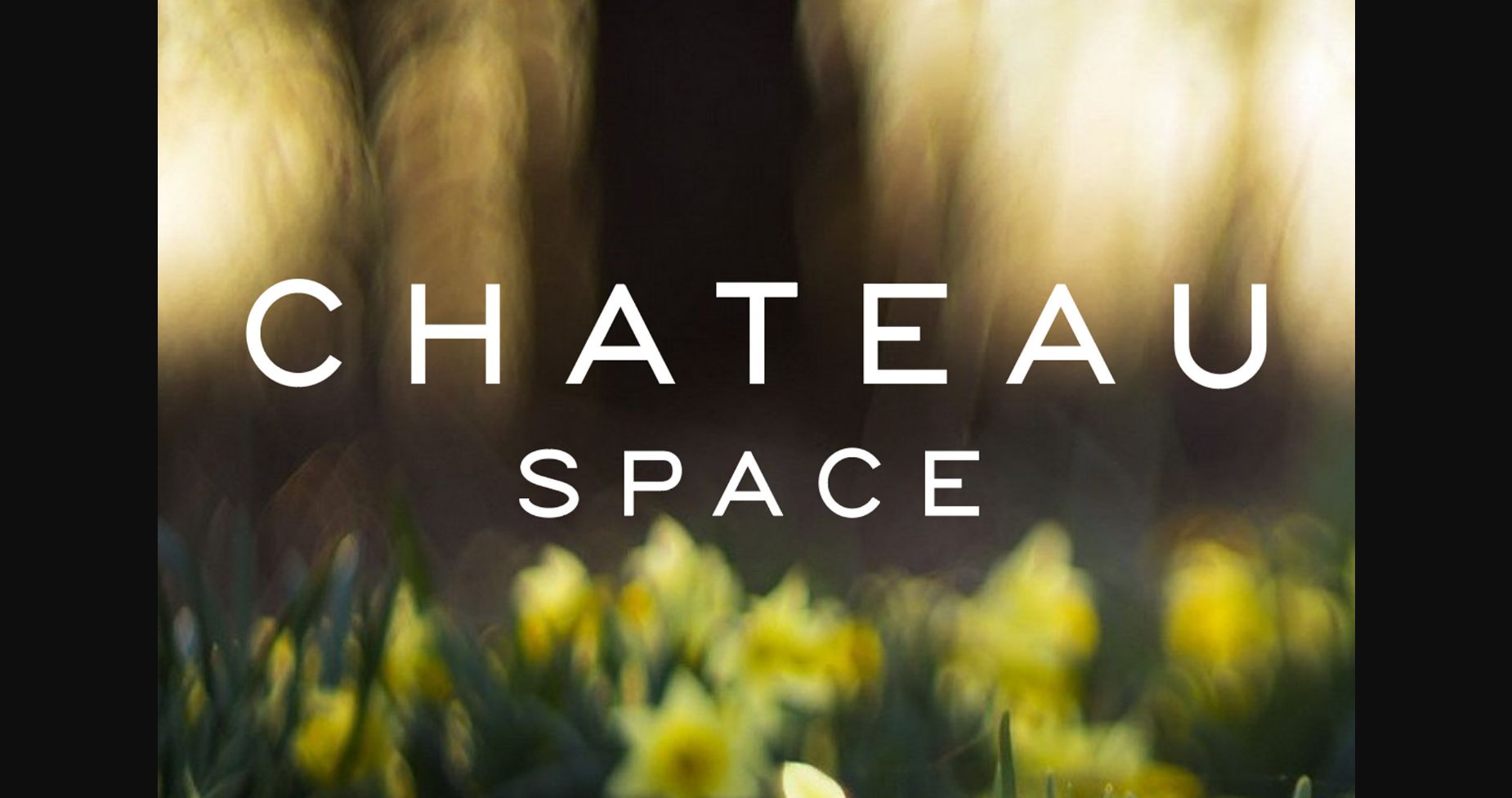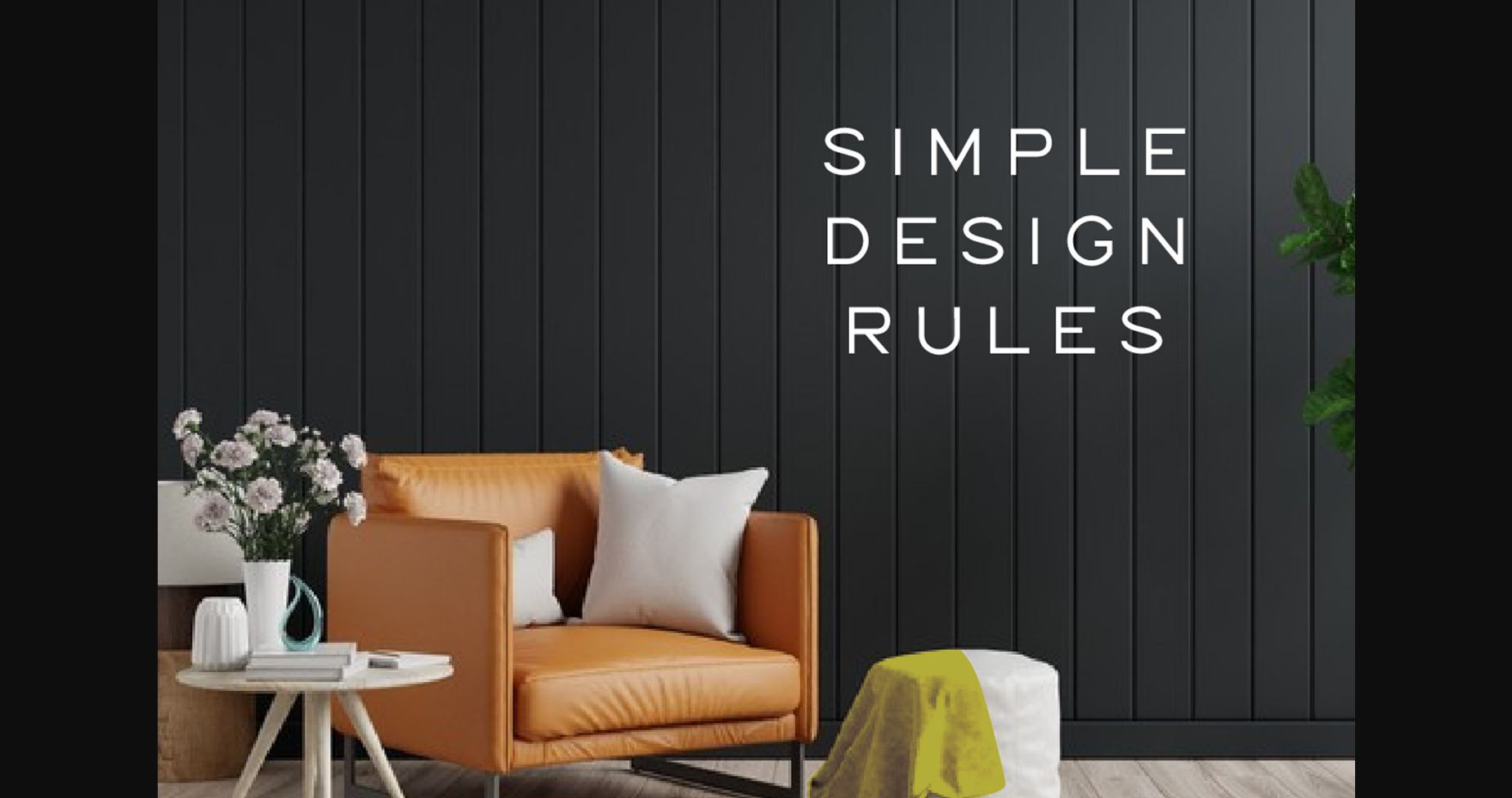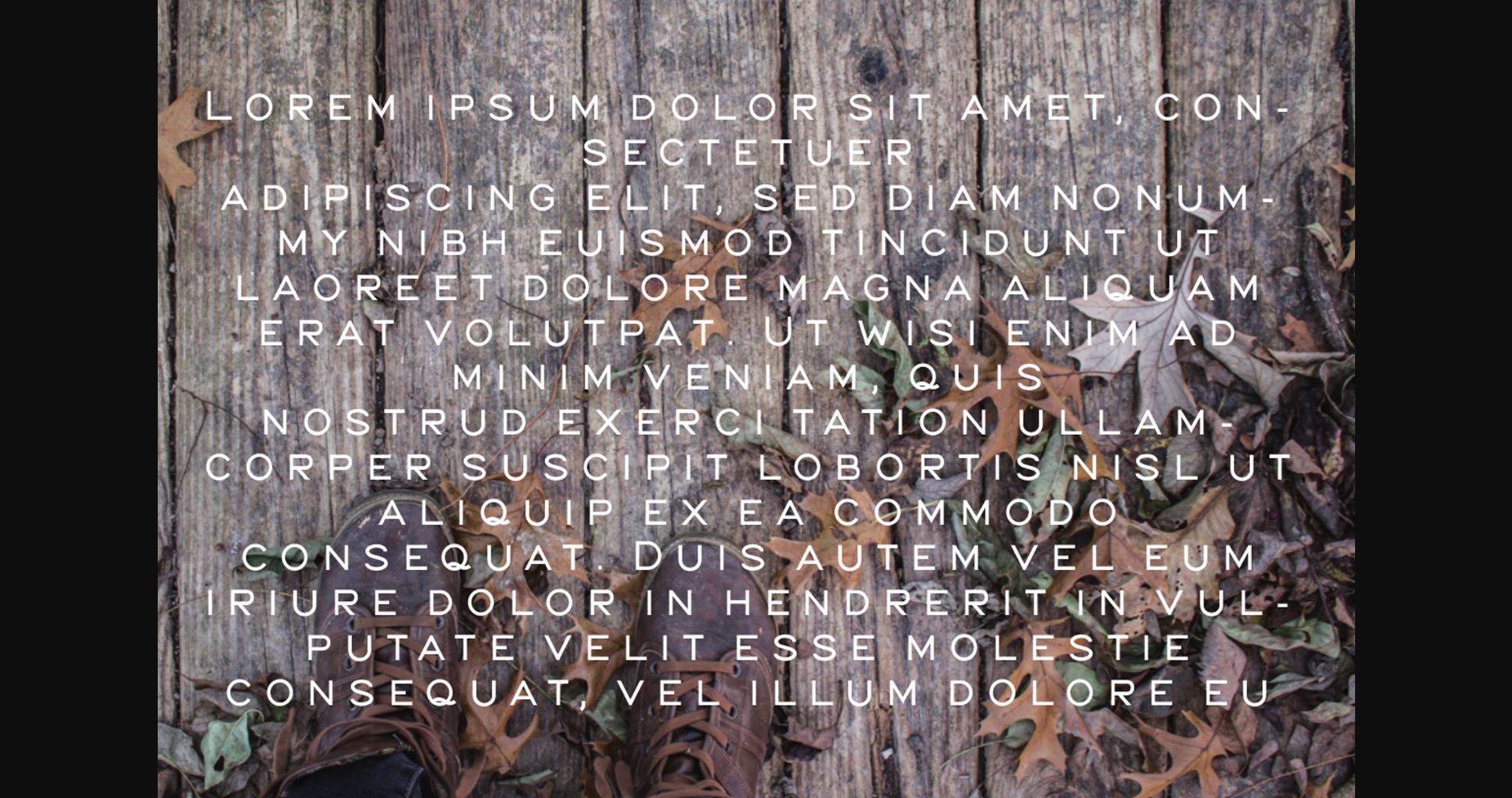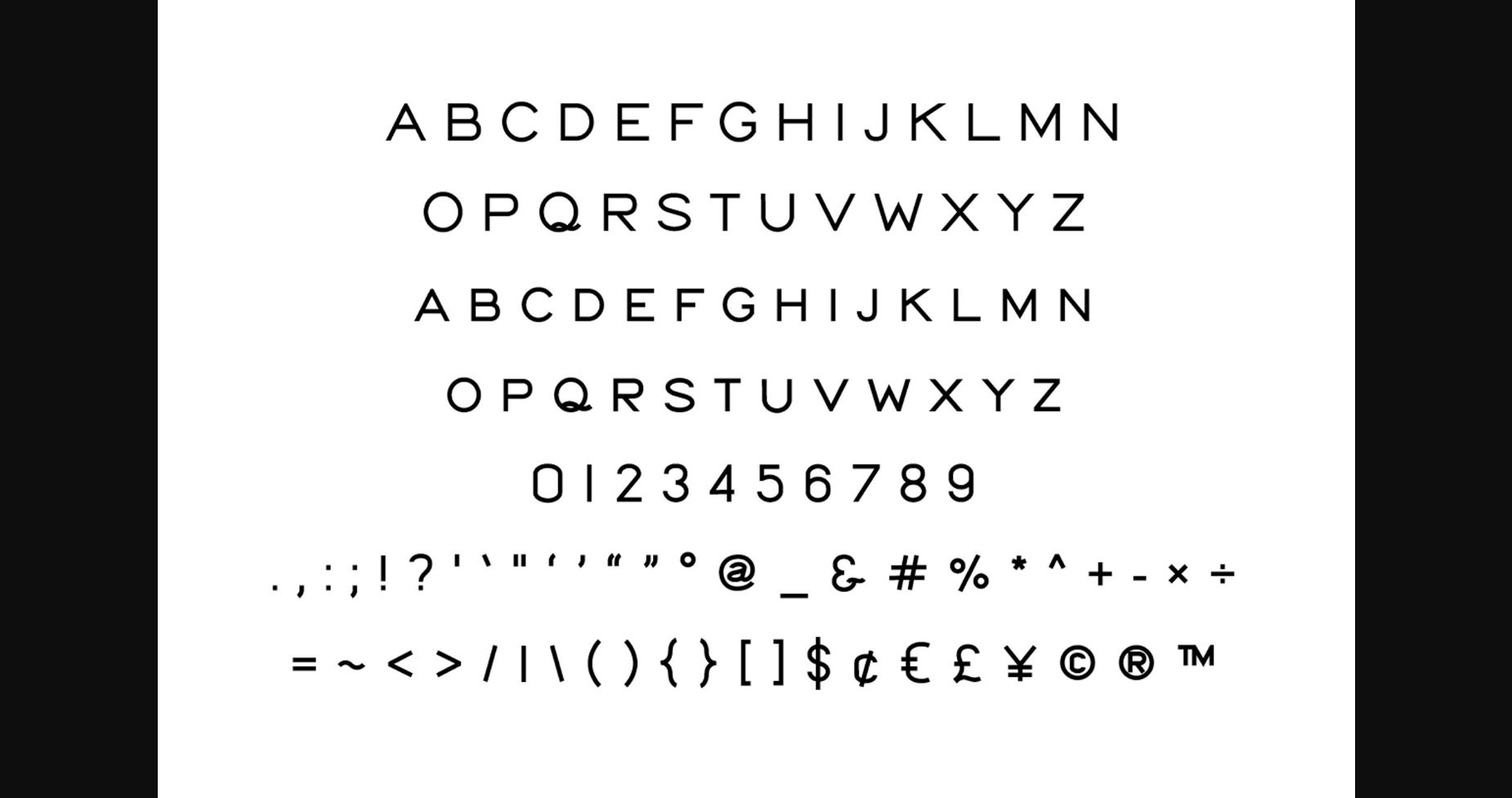
HomeSans Serif FontsChateau Space Font Sans Serif Fonts Chateau Space Font FacebookXPinterestWhatsApp 1 of 7 ... Chateau Space Font Poster 2... Chateau Space Font Poster 3... Chateau Space Font Poster 4... Chateau Space Font Poster 5... Chateau Space Font Poster 6... Chateau Space Font Poster 7... About Chateau Space Font Chateau Space is a minimal and neat sans serif font. It can easily be matched to an incredibly large set of projects, so add it to your creative ideas and notice how it makes them stand out! DOWNLOAD NOW People also explored Steinfild Font Hallowitch Font Younger Font Suboseto Font Hibiscus Monogram Font Contoursy Signature Font Friday Feelings Font Highland Font Fun Field Font 336 0 TagsChateau Space Font Previous articleAlgeko FontNext articleMaffiny Font LEAVE A REPLY Cancel reply Comment: Please enter your comment! Name:* Please enter your name here Email:* You have entered an incorrect email address! Please enter your email address here Website: Save my name, email, and website in this browser for the next time I comment. Personal Use Free Zero Panzer Personal Use Free Read more about this font Super Discount Personal Use Free Read more about this font Tomatoes Personal Use Free Read more about this font Earwig Factory Personal Use Free Read more about this font BLOG Using Fonts in Digital Marketing: Tips to Strengthen Your Brand Identity In the realm of digital marketing, every visual element plays a crucial role in shaping a brand's identity, and fonts are no exception. The... How to Install and Use Fonts on Windows, macOS, and Web Projects Modern Sans-Serif Fonts That Brands Love in 2025 Where to Buy American Fonts Online in 2024